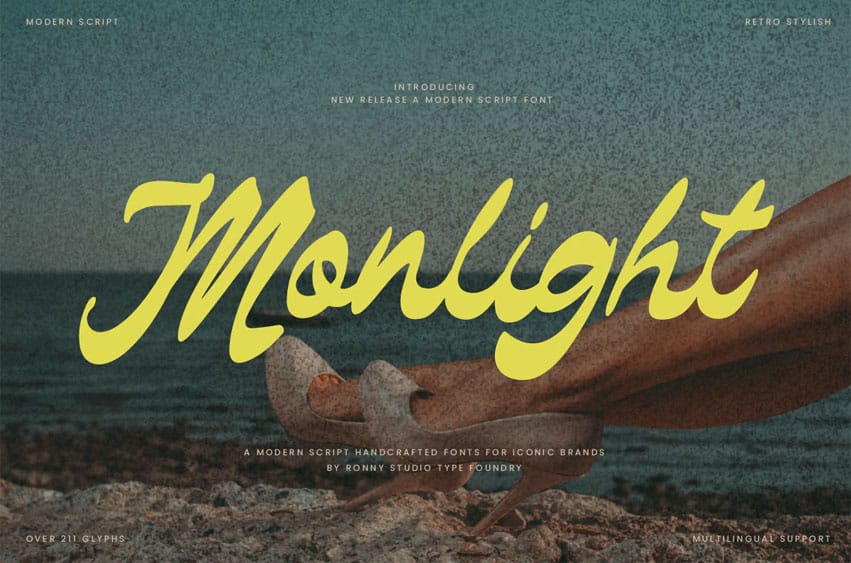
Monlight Modern Font is a modern script font with a stylish retro touch. Designed for brands that want to stand out, Monlight is perfect for logos, product packaging, merchandise, social media, and various creative projects.
With smooth curves and a distinctive handwritten style, Monlight brings a classic yet modern feel, adding a luxurious and exclusive impression to your designs.